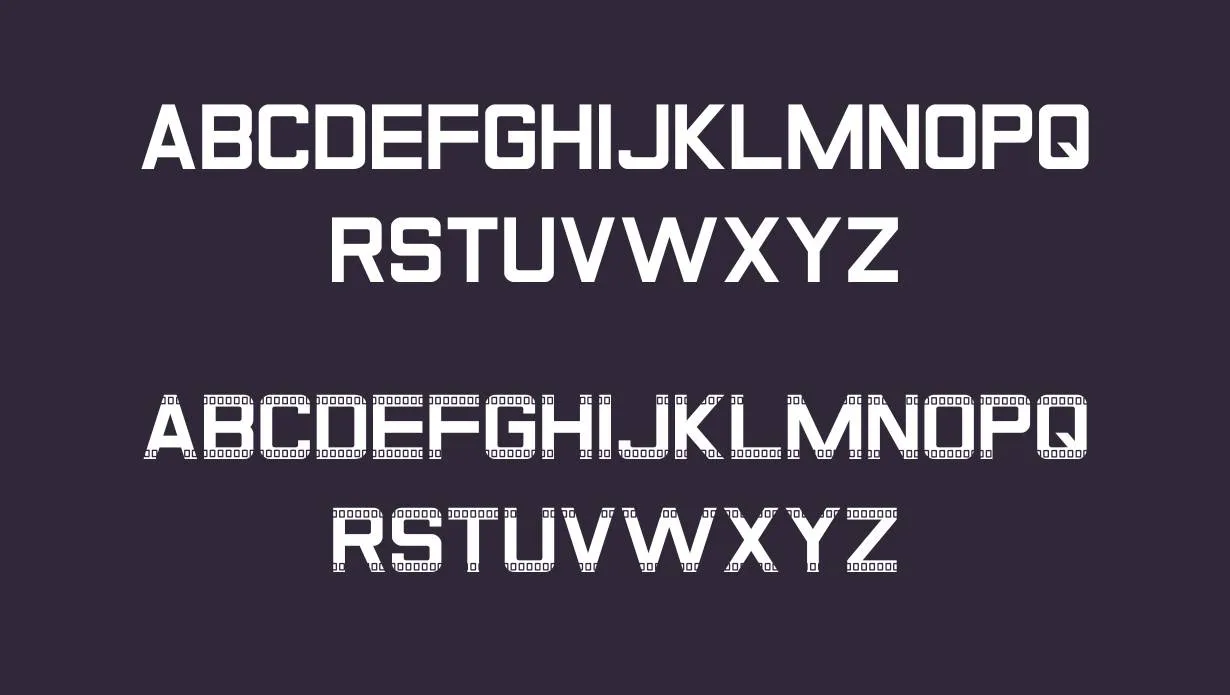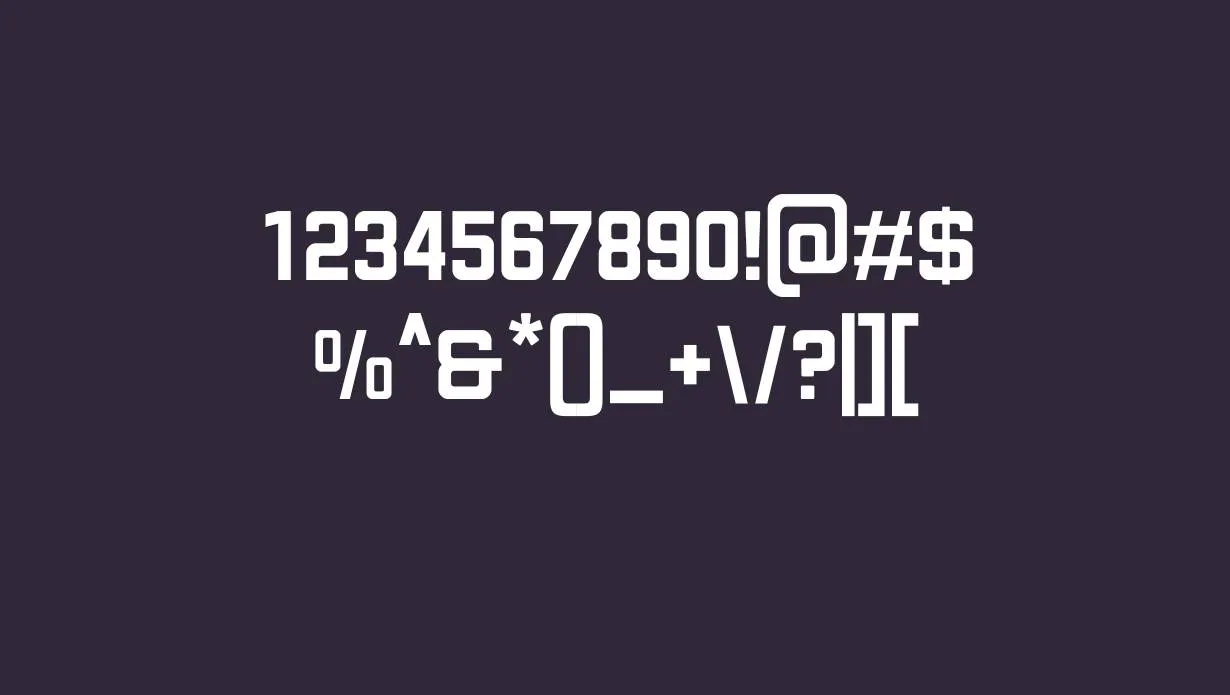
Gratis is a very interesting Sans-Serif font with all capitalized characters which makes it perfect for all projects.
This stunning font was designed by Situjuh Nazara. Its initial resale date is 25, Oct 2012.This font comes in TTF and OTF formats along with a demo version for personal use only.
GRATIS Font Family
It is a very suitable font for making headings, logos, and titles for different brands or organizations. It supports file formats TTF and OTF and you can use its online generator tool to convert your text into this font within seconds.